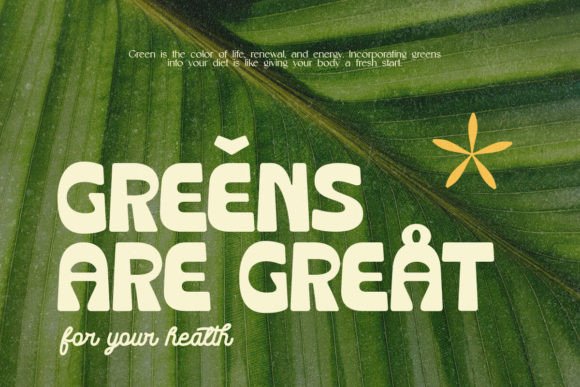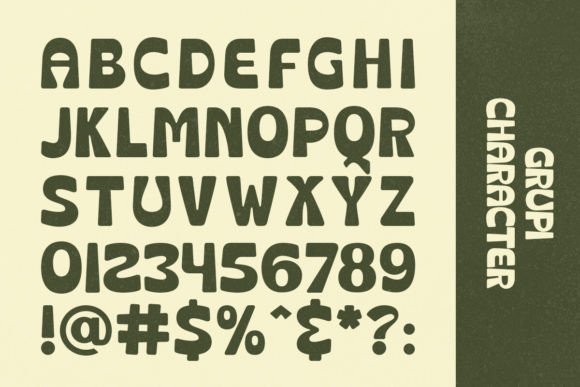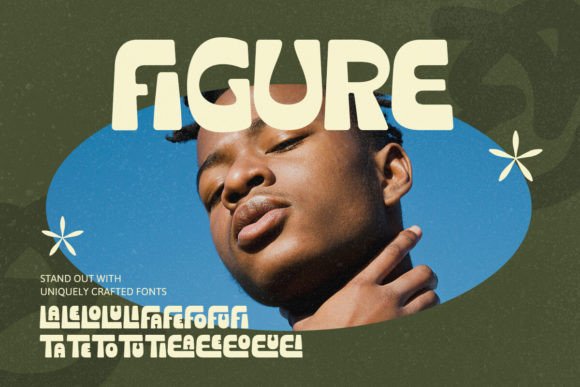
Introduction to Grupi Font
Grupi – Bold Reverse Contrast Font Grupi is a chunky, rounded font with a cool reverse contrast that’s made for retro, groovy, and pop-style designs.
It’s awesome ligatures and alternative characters let you get creative and playful with your projects Whether you’re going for something fun or just want a bold, standout look, Grupi has got you covered.
Key Features of Grupi Font